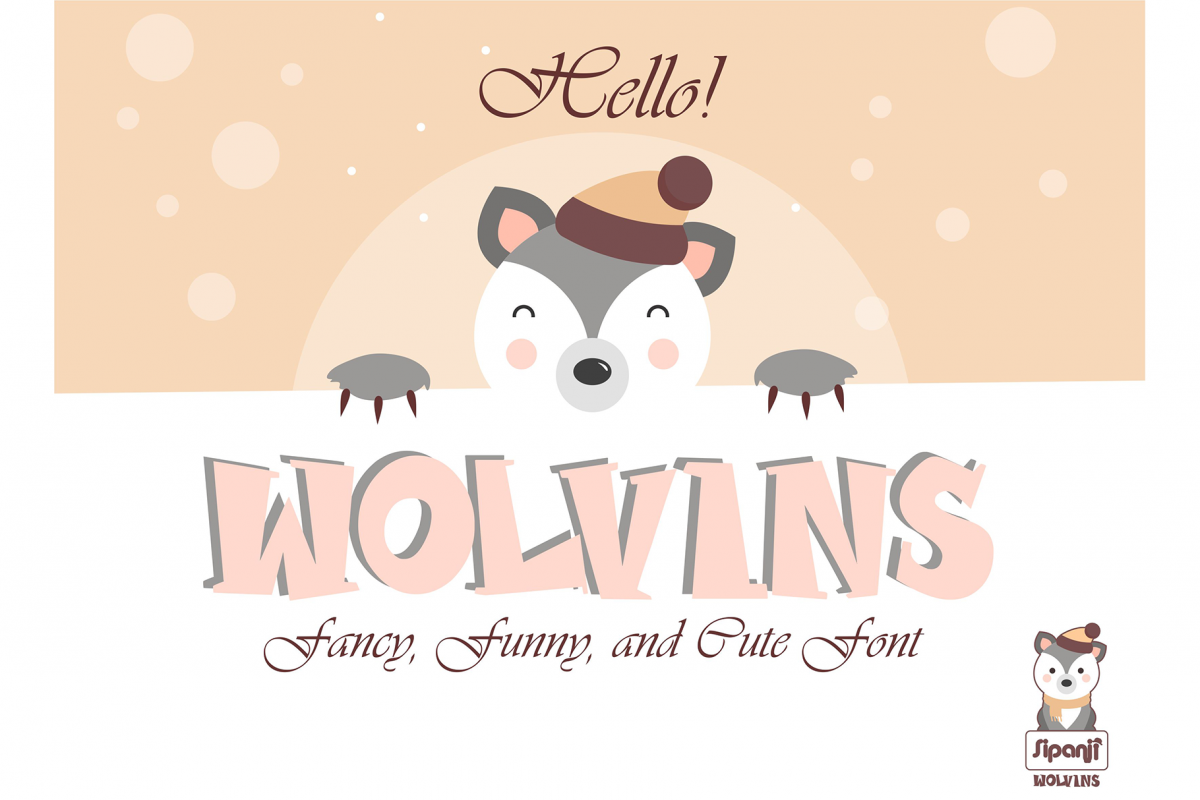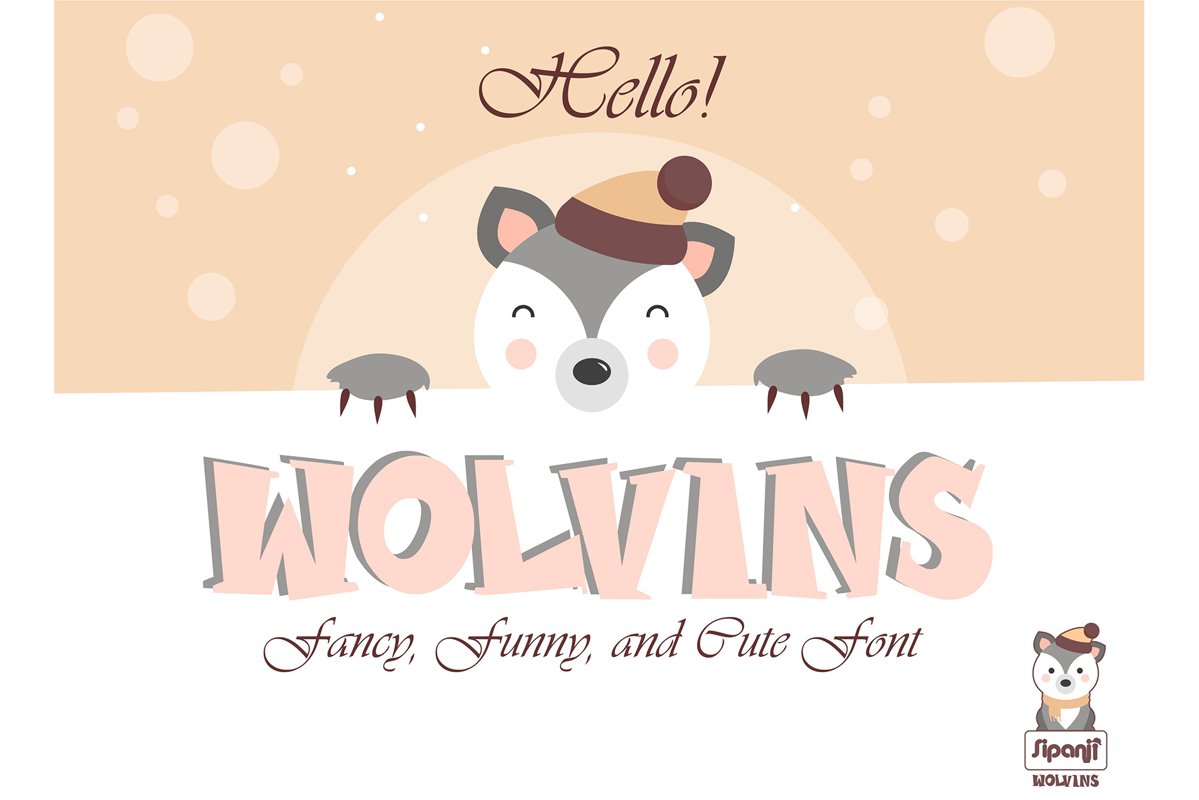
Wolvins
"Wolvins" is a cute display font that is perfect for various school, children, and baby-themed projects. With its playful and charming style, this font adds a delightful touch to your designs, making them appealing to young audiences. Whether you're creating educational materials, children's books, nursery decorations, or any other project targeting kids or babies, "Wolvins" will infuse a sense of fun and whimsy into your typography. Let this font be your go-to choice for creating adorable and captivating designs that bring joy to children and adults alike.